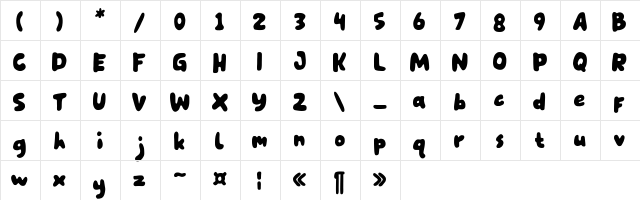
Hey Kidstoon Regular
Design Context for Hey Kidstoon Typeface
Hey Kidstoon trades formality for fun, with bouncy, characterful letterforms that bring warmth and energy to any project.
Great for children's books, toy packaging, family event branding, and casual consumer-facing design.
Font Pairing: Pairs well with a rounded or humanist sans for body copy, maintaining the friendly tone without relying on Hey Kidstoon to carry extended reading.
Pro Tip: Avoid using Hey Kidstoon for long passages of text — it works best for headlines, labels, and short calls to action.